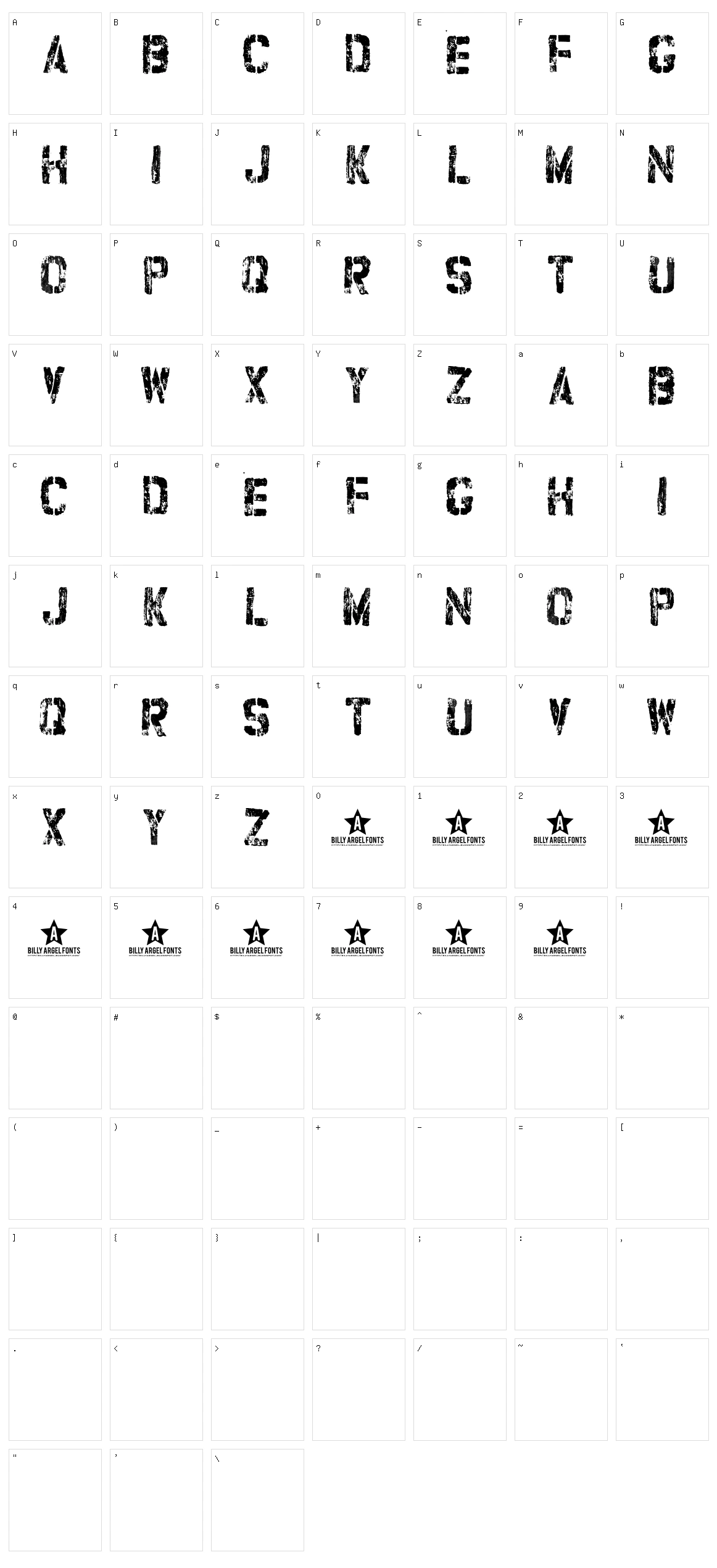
The free font Refurbished is carefully designed by Billy Argel Fonts ®, showcasing a thoughtful balance of creativity and usability and falls under the Stencil font style. When you download the ZIP file, it contains only 337.56 KB of font files, making it lightweight and quick to download. Please review the license details below to understand permitted usage and distribution rights. If license information is not available, we recommend using this font for personal projects only or contacting the author directly for commercial usage permissions.
REFURBISHED FONT